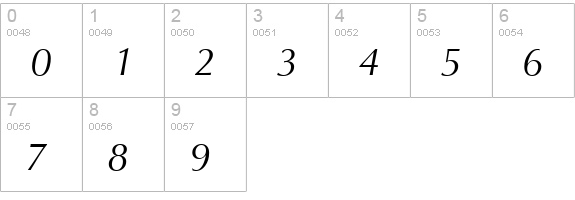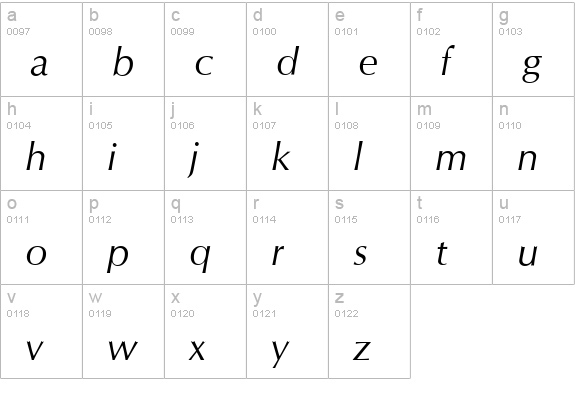
Opus-Italic Font Details
Opus-Italic is a distinctive, italic variant in the Opus typeface family \xE2\x80\x94 well suited to design and typography projects.
Opus-Italic font is a stylish and elegant typeface that exudes sophistication and charm. With its slanted and graceful letterforms, Opus-Italic adds a touch of class to any design project. This versatile font is perfect for creating eye-catching headlines, elegant invitations, or stylish branding materials. The best part? Opus-Italic is completely free to download at FontsMarket.com. This means you can access this beautiful font without any cost, making it a fantastic choice for both personal and commercial projects. Whether you're a designer looking to add a touch of elegance to your work or an individual in need of a classy font for your projects, Opus-Italic is the perfect choice. Download it today and elevate your designs with this stunning typeface.